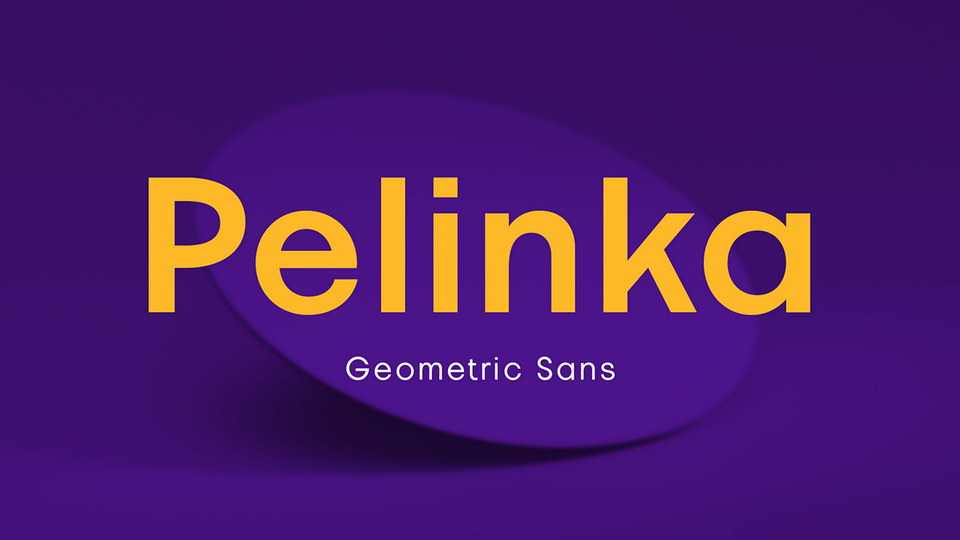
Download Pelinka typeface, a sans serif font family that has a solid foundation of geometric shapes designed to be bold and flexible.
Designer: Jehoo Creative